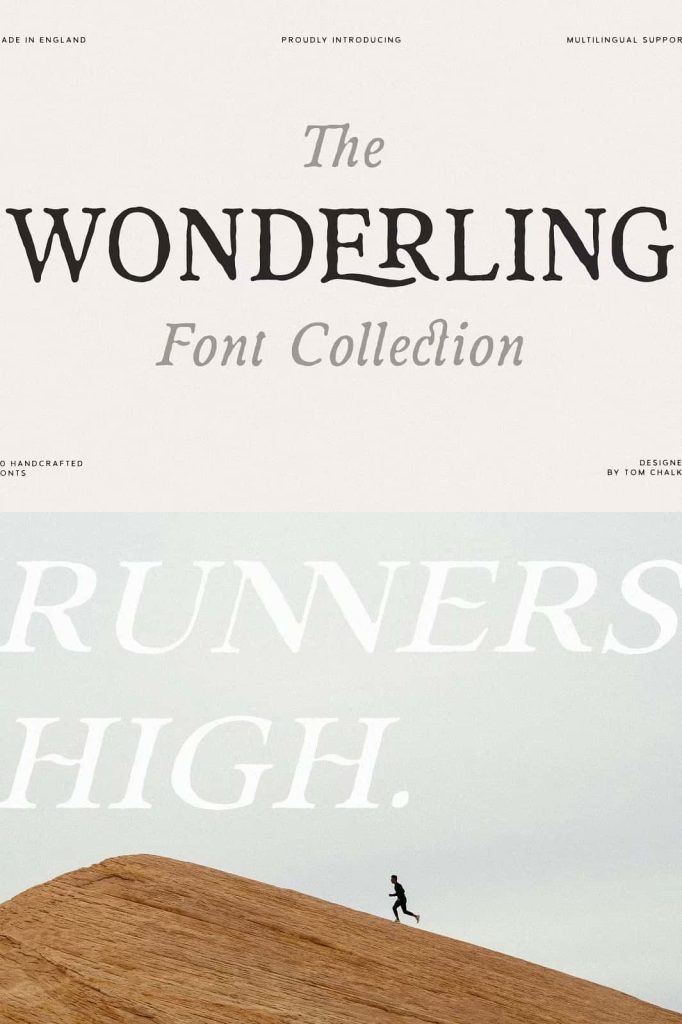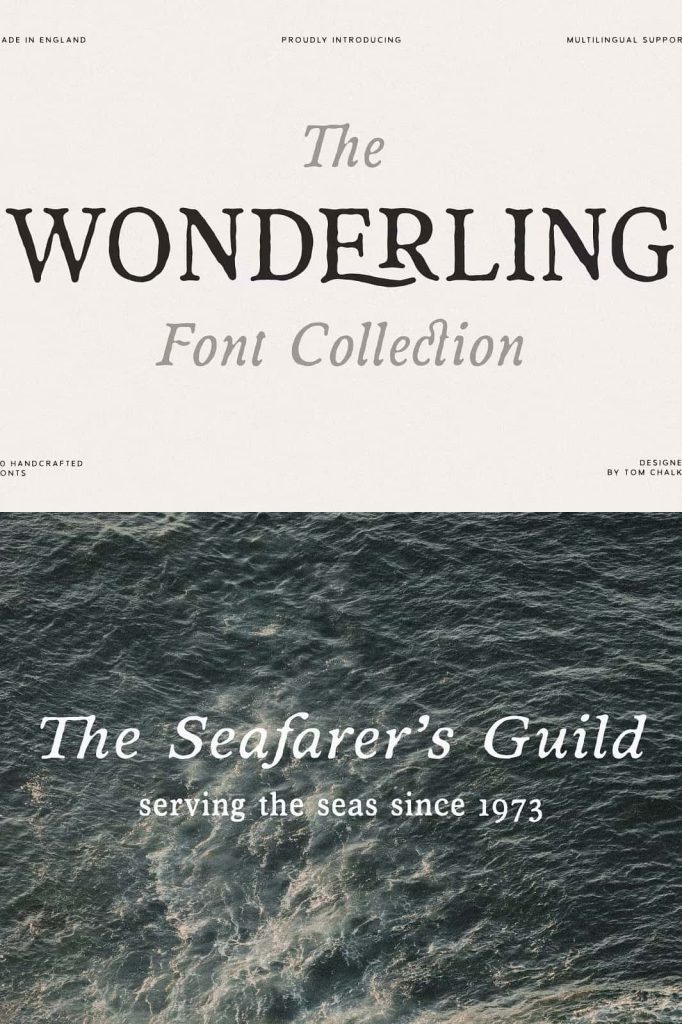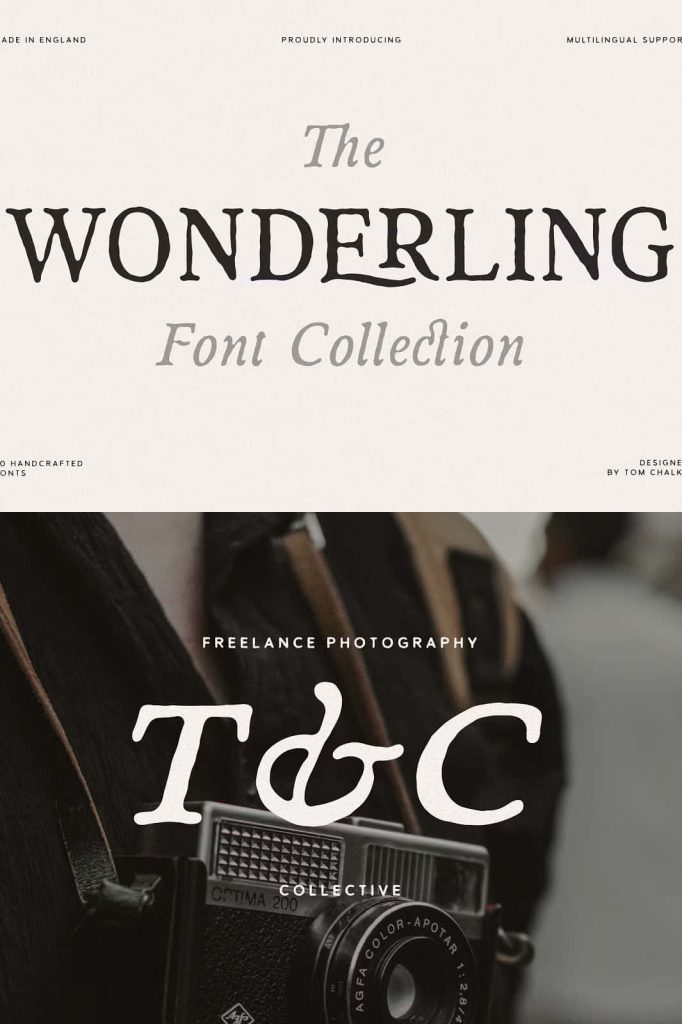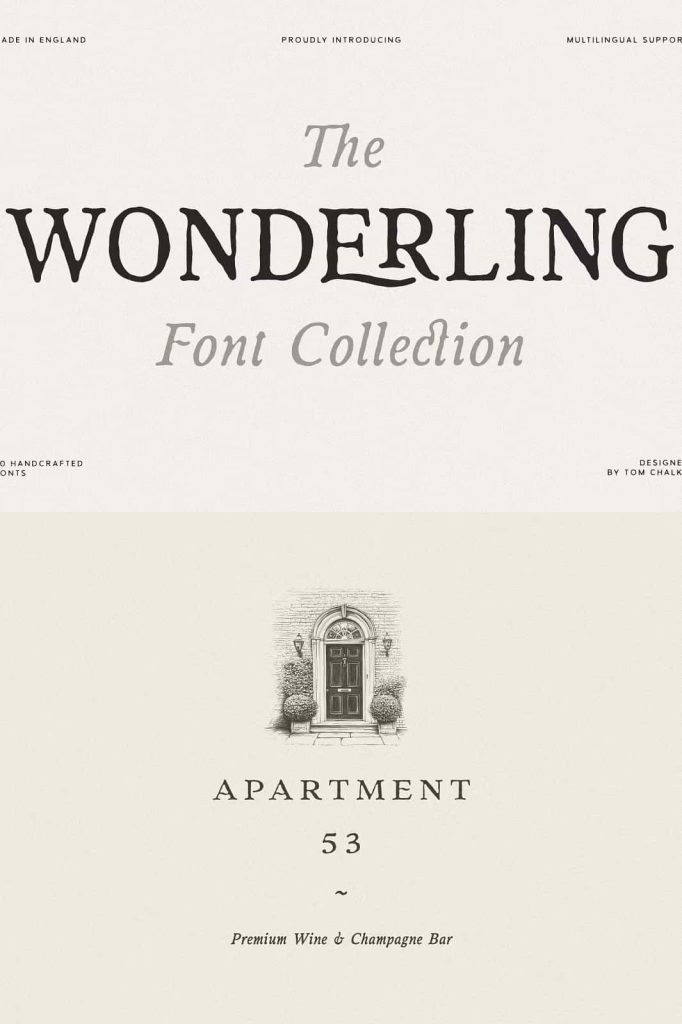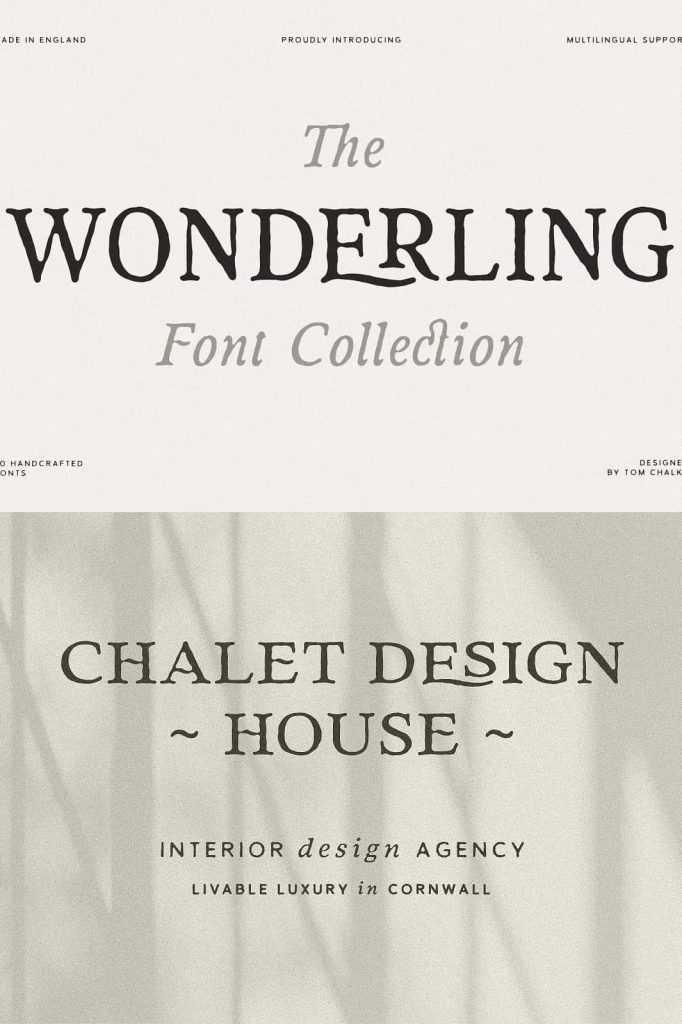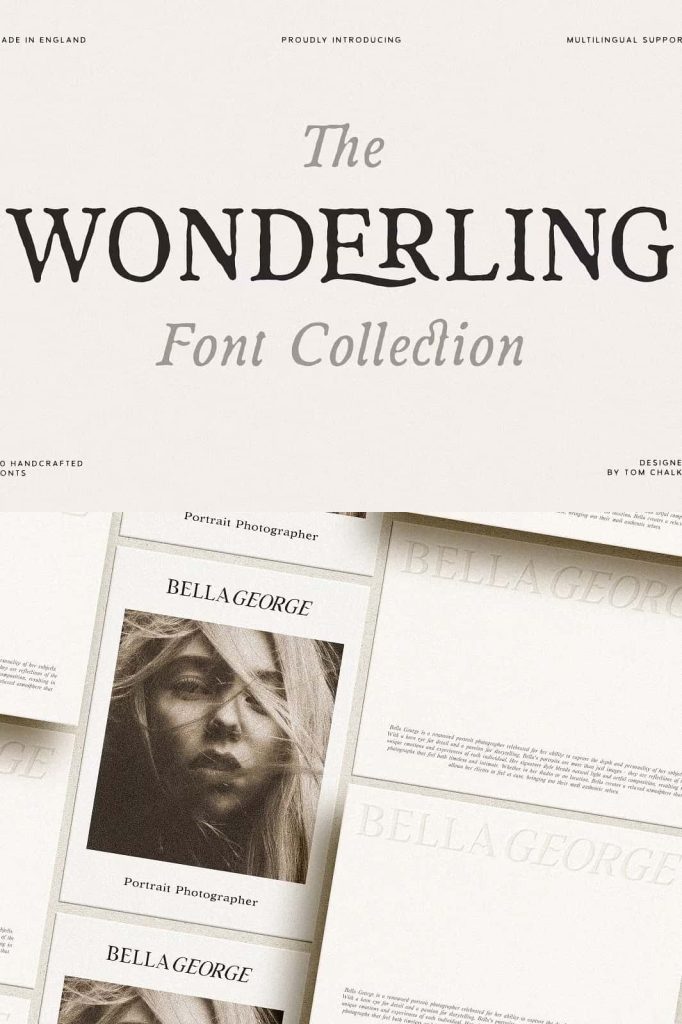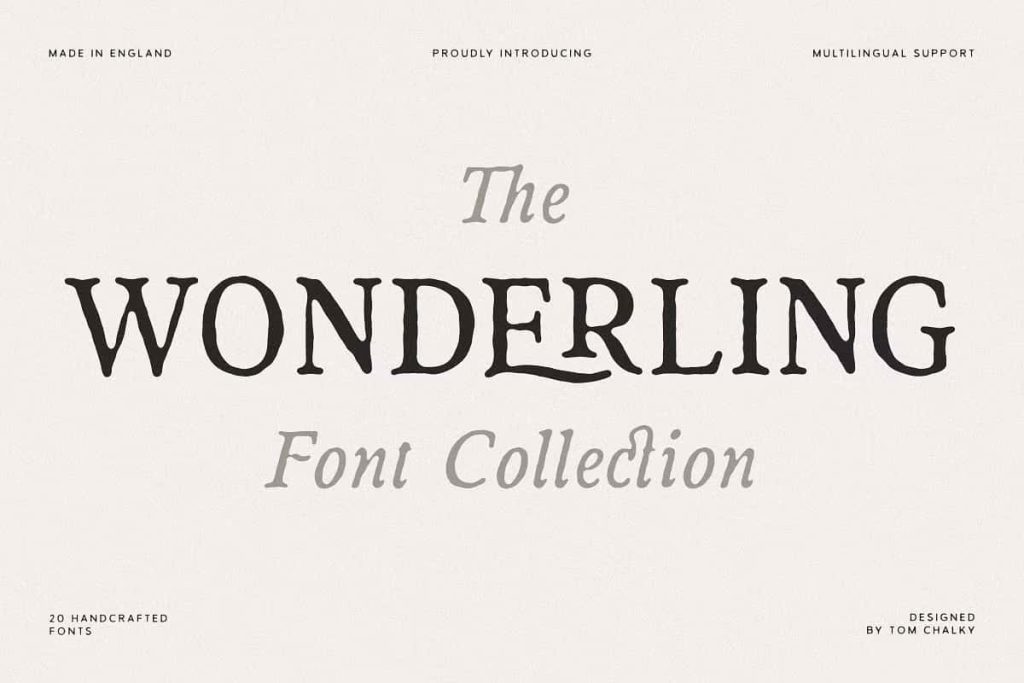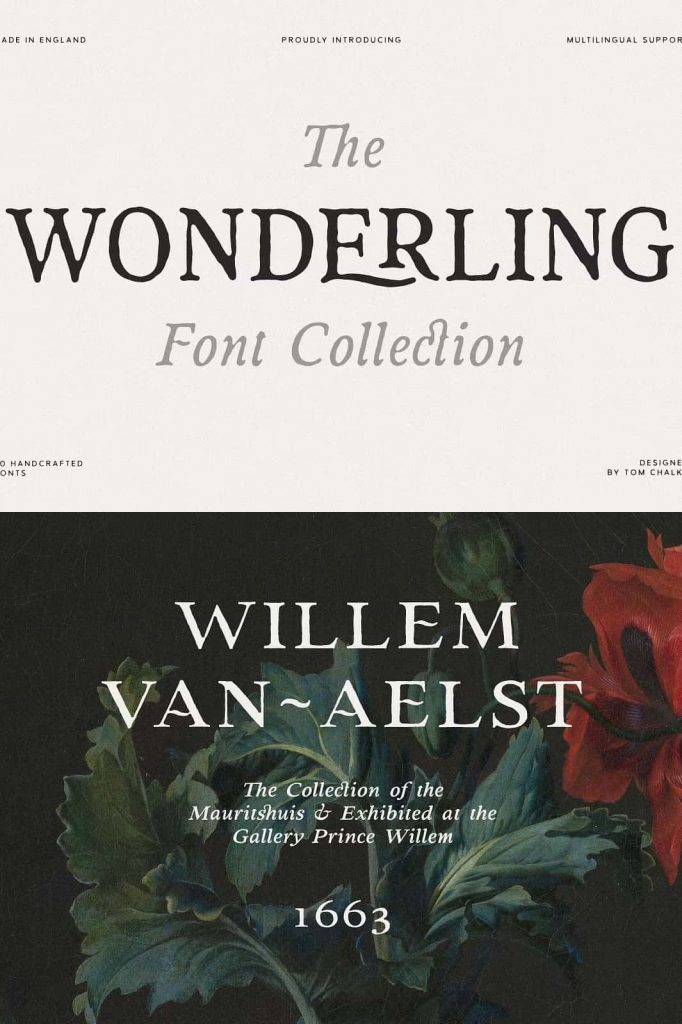
Wonderling Font Collection: Vintage Elegance with Handcrafted Versatility
The Wonderling Font Collection stands as a refined tribute to vintage typography, combining timeless elegance with a handcrafted aesthetic. Designed to deliver both character and flexibility, this collection empowers designers to create visually rich and expressive compositions. It draws inspiration from classic serif typefaces while introducing modern usability, making it a valuable tool for a wide range of creative projects.
Wonderling does more than replicate vintage styles. It reinterprets them with thoughtful detail and contemporary precision. Each letterform reflects a balance between tradition and innovation, allowing designers to build designs that feel authentic, sophisticated, and visually engaging.
Inspired by Classic Serif Typography
Wonderling takes its foundation from traditional serif typefaces that defined historical print design. These influences bring a sense of familiarity and timeless appeal. The font captures the essence of classic typography, including balanced proportions, elegant serifs, and refined contrast.
This inspiration allows designers to evoke a nostalgic atmosphere while maintaining modern clarity. The result is a typeface that feels both rooted in history and relevant in contemporary design.
Timeless Structure with Modern Refinement
The collection preserves the core principles of serif design while refining them for today’s creative needs. Each character has been carefully adjusted to ensure readability and visual harmony. This attention to detail ensures that the font performs well across different applications.
Designers can use this structure to create compositions that feel stable, elegant, and visually balanced. It supports both minimal and intricate layouts with equal effectiveness.
Handcrafted Charm That Adds Personality
Wonderling introduces subtle handcrafted elements that bring warmth and individuality to the design. These details create a sense of authenticity that distinguishes the font from purely digital typefaces. The handcrafted quality adds depth and character, making each composition feel more personal and engaging.
This charm enhances the emotional connection between the design and its audience. It allows designers to communicate messages with a sense of sincerity and artistry.
Organic Details for Unique Expression
The font includes slight variations and nuanced curves that mimic the imperfections of hand-crafted lettering. These elements create a natural and organic feel without compromising clarity. Designers can use these details to add uniqueness to their work.
This approach ensures that each design stands out while maintaining a cohesive and professional appearance.
A Versatile Collection for Multiple Design Needs
Wonderling is designed to adapt to a wide range of creative applications. Its versatility allows designers to use it across different types of projects without losing consistency. From bold branding to delicate invitations, the font performs reliably in various contexts.
The collection provides the flexibility needed to explore different styles and compositions. It supports both traditional and modern design approaches, making it suitable for diverse creative challenges.
Perfect for Logos, Branding, and Packaging
In logo design, Wonderling creates a strong and memorable identity. Its vintage influence adds character, while its refined structure ensures clarity. Designers can use it to craft logos that feel both distinctive and timeless.
For branding and packaging, the font enhances visual appeal by introducing a sense of craftsmanship and quality. It helps products stand out while maintaining a cohesive brand image.
Ideal for Invitations and Editorial Design
Wonderling excels in projects that require elegance and attention to detail. Its classic serif style makes it a natural choice for invitations, where typography plays a central role. The font adds a sense of occasion and sophistication to event materials.
In editorial design, Wonderling supports readability while enhancing the overall aesthetic. Designers can use it for headlines, titles, and body text to create layouts that feel polished and engaging.
Creating Elegant and Memorable Layouts
The font’s balanced proportions and refined details allow designers to build layouts that feel cohesive and visually appealing. It guides the viewer’s eye and improves the reading experience.
By using Wonderling, designers can create compositions that combine functionality with artistic expression.
A Typeface Collection That Elevates Design Quality
Wonderling brings together the best aspects of vintage typography and modern design. Its ability to adapt across different applications makes it a valuable asset for designers. It supports creativity while maintaining a strong foundation in classic design principles.
This collection encourages designers to experiment with style and composition while ensuring that the final result remains polished and professional. It transforms typography into a central element that enhances the overall design.
The Wonderling Font Collection offers a perfect blend of vintage inspiration, handcrafted charm, and modern versatility. Its elegant serif structure and adaptable design make it suitable for logos, branding, packaging, invitations, and editorial projects. By combining timeless aesthetics with contemporary functionality, Wonderling provides designers with a powerful tool to create sophisticated and memorable visual experiences.